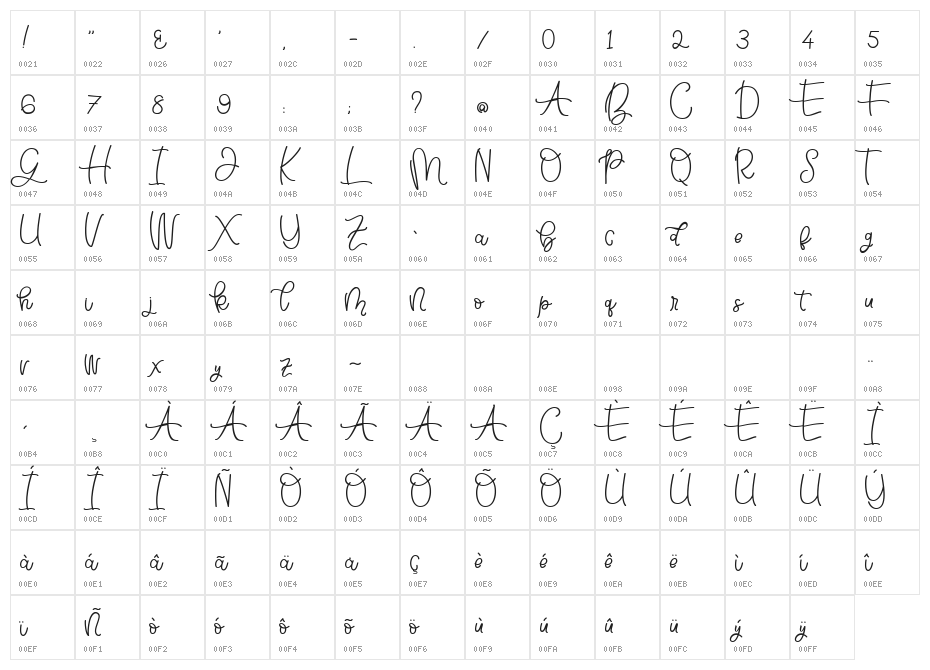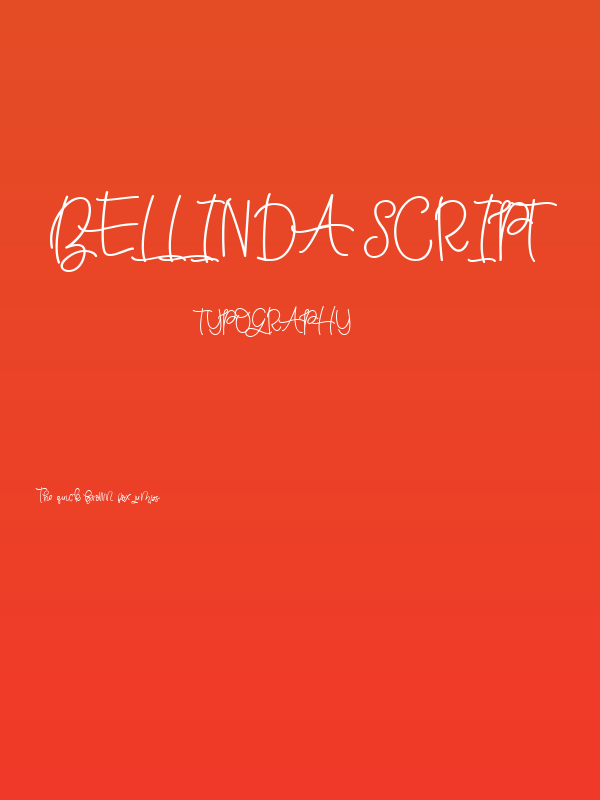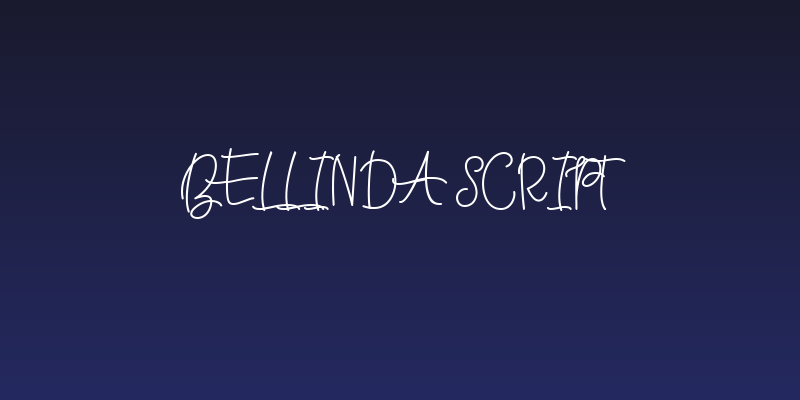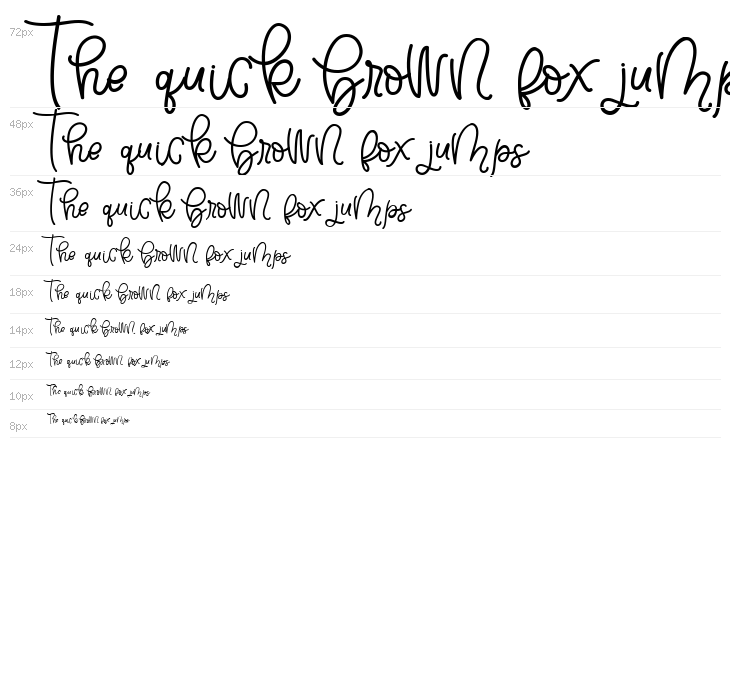
Bellinda Script Font
Bellinda Script Description
This font exhibits a playful and elegant script style, characterized by its flowing, interconnected letters that mimic the fluidity of handwriting. The uppercase letters stand tall with a slight slant, while the lowercase letters are more compact and feature intricate loops and curves. The numerals maintain the script's whimsical nature, with rounded edges and a consistent stroke width. Special characters are thoughtfully designed to blend seamlessly with the alphabet, enhancing the font's cohesive appearance. This script font is perfect for adding a personal touch to any design project.
| Use Case | Logos, Headlines, Invitations |
| Proposed Projects | Ideal for wedding invitations, greeting cards, branding, and personal stationery. |